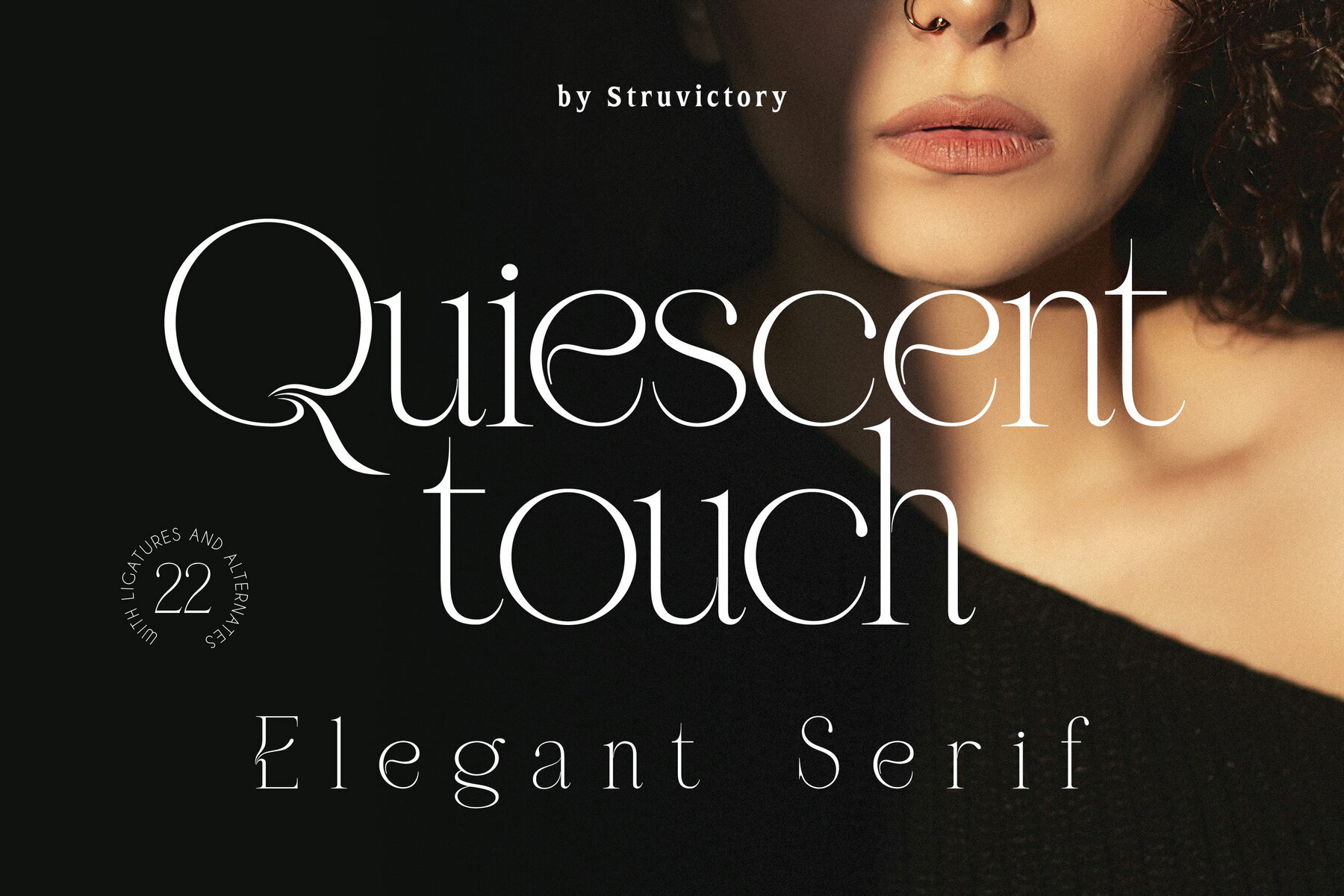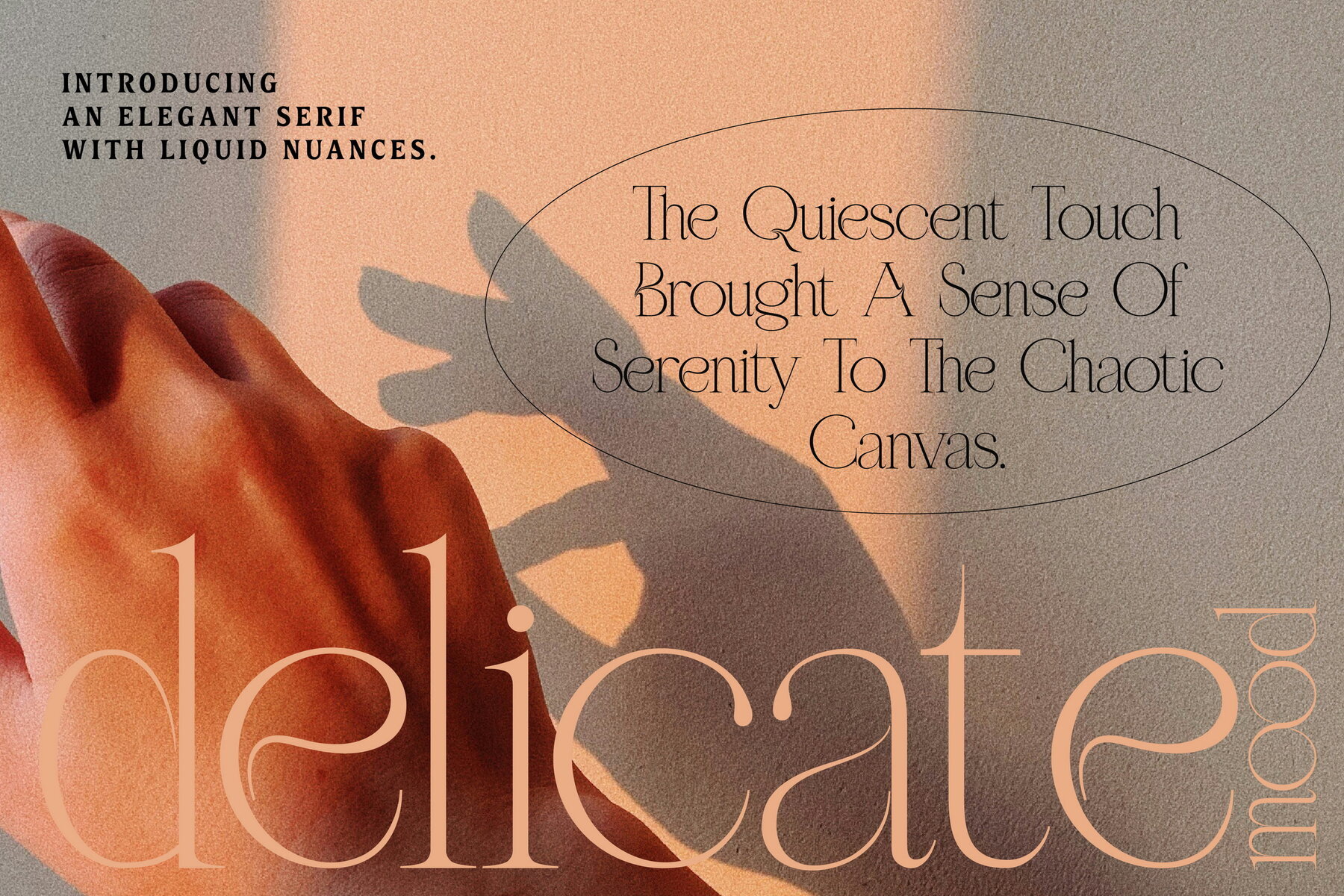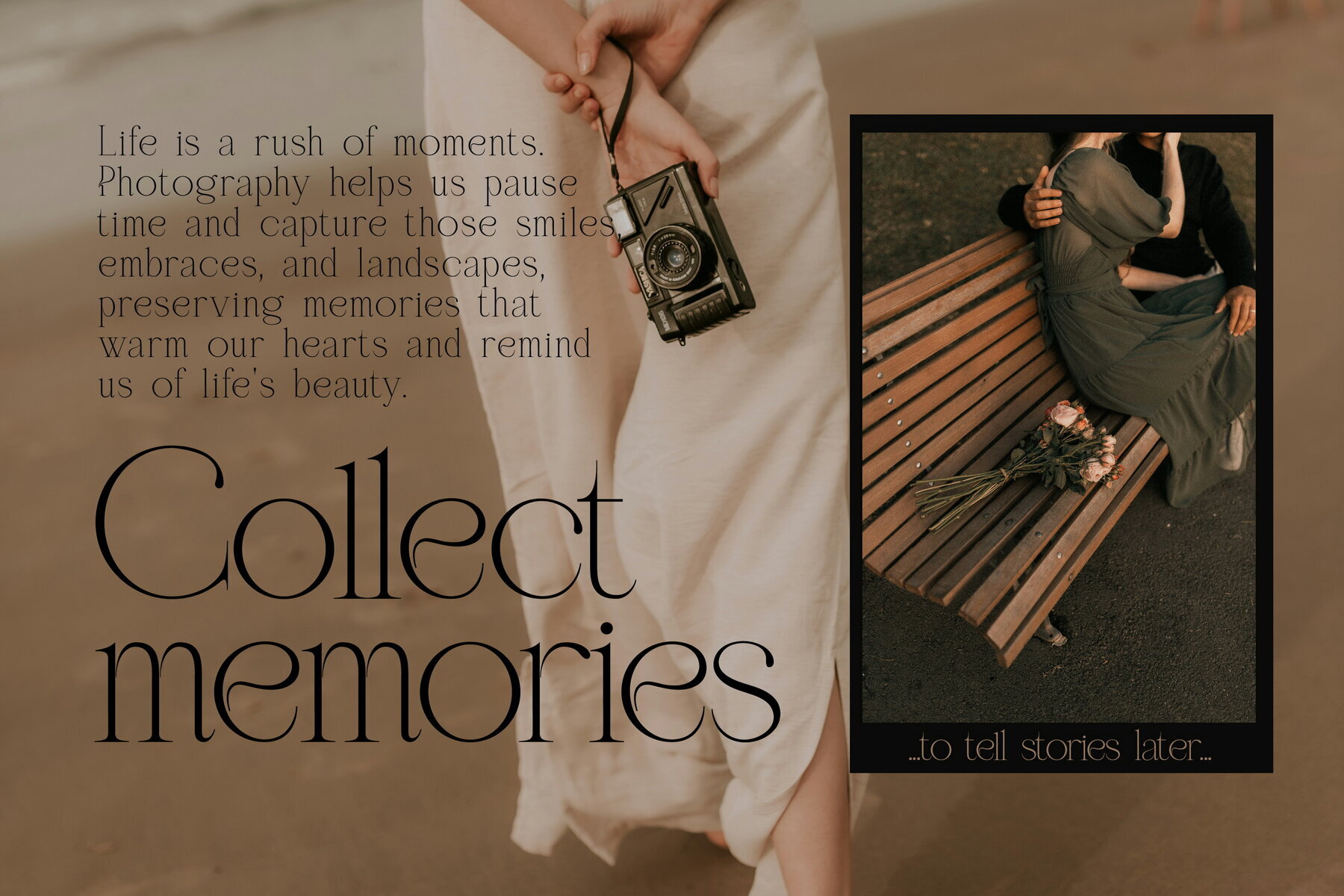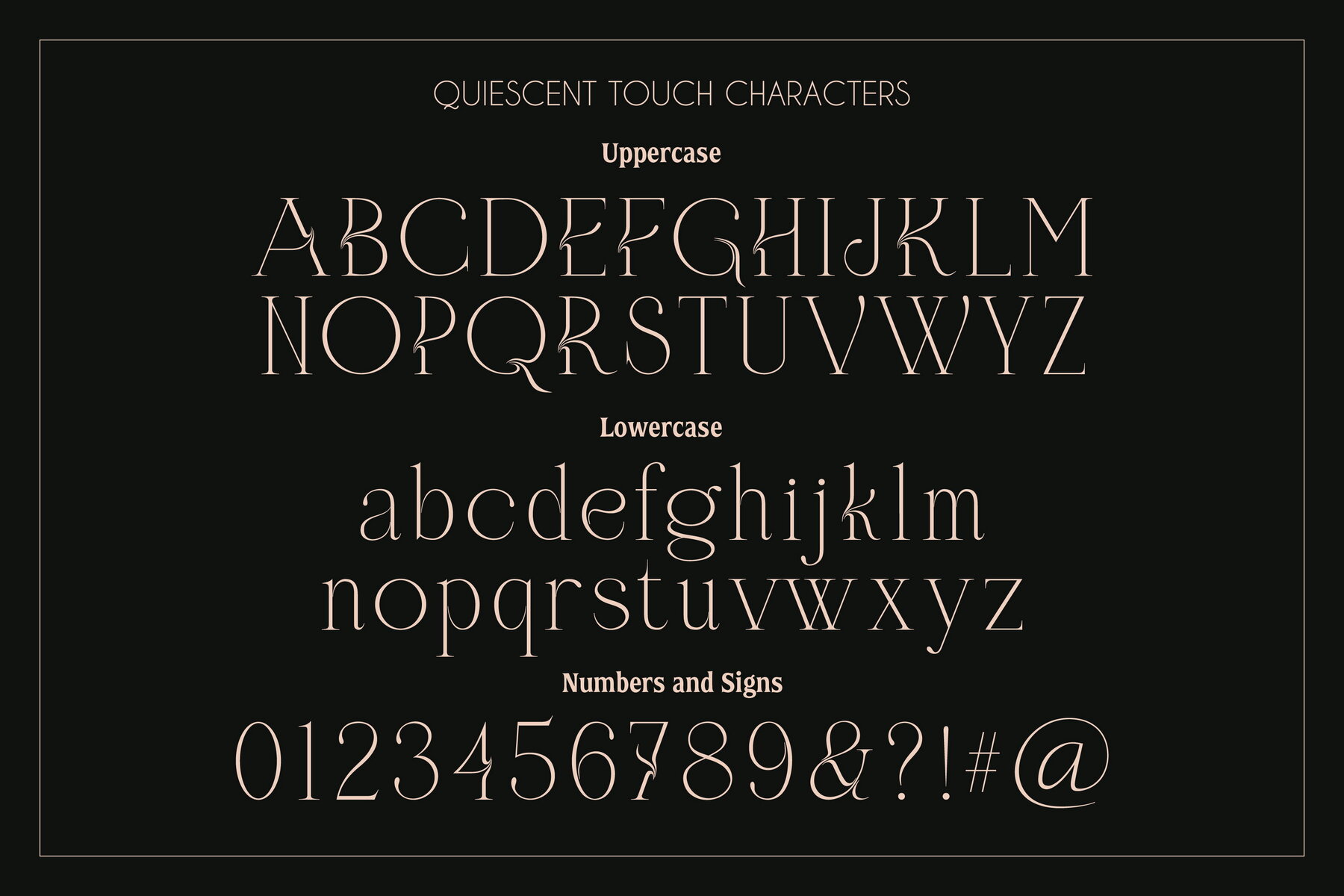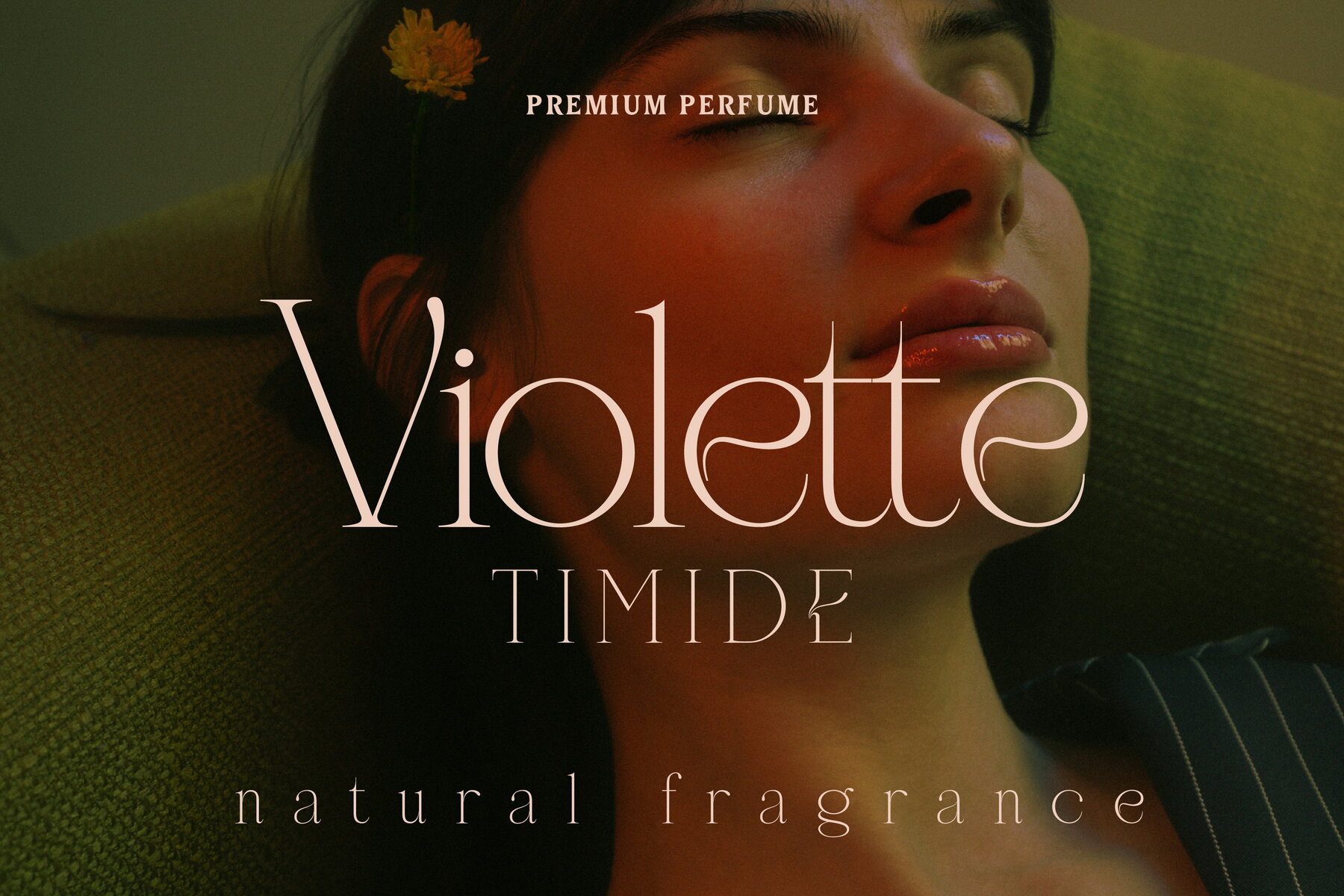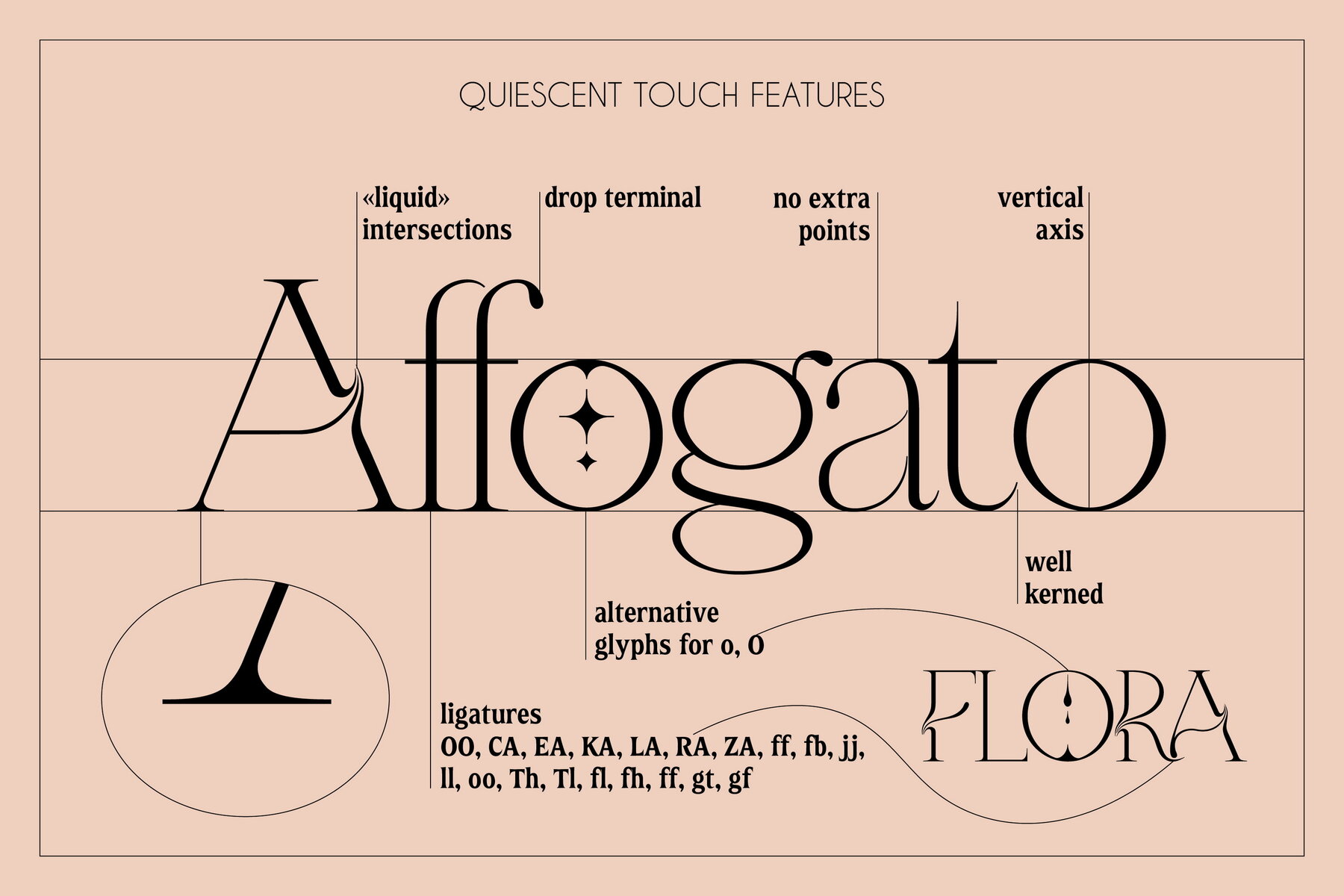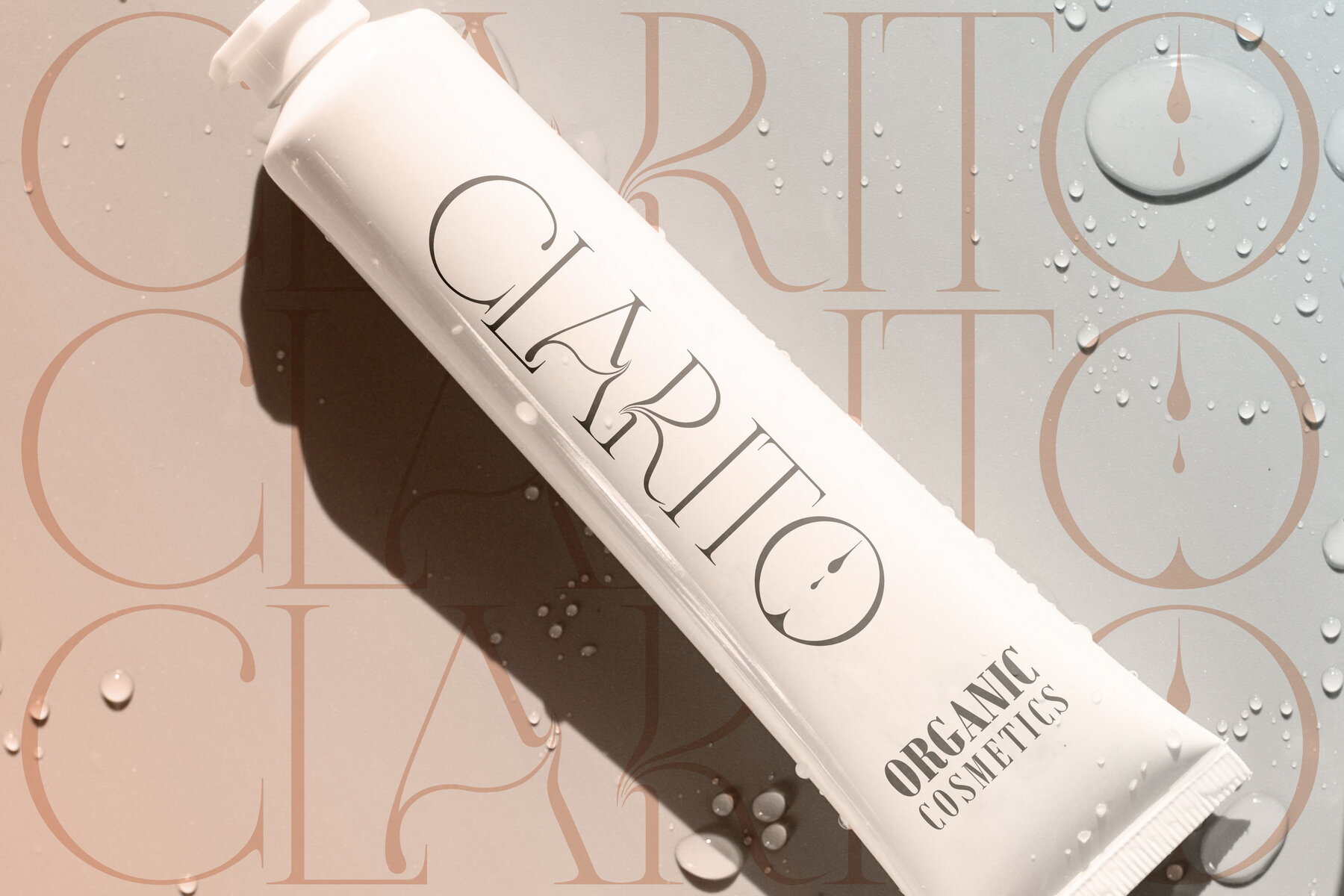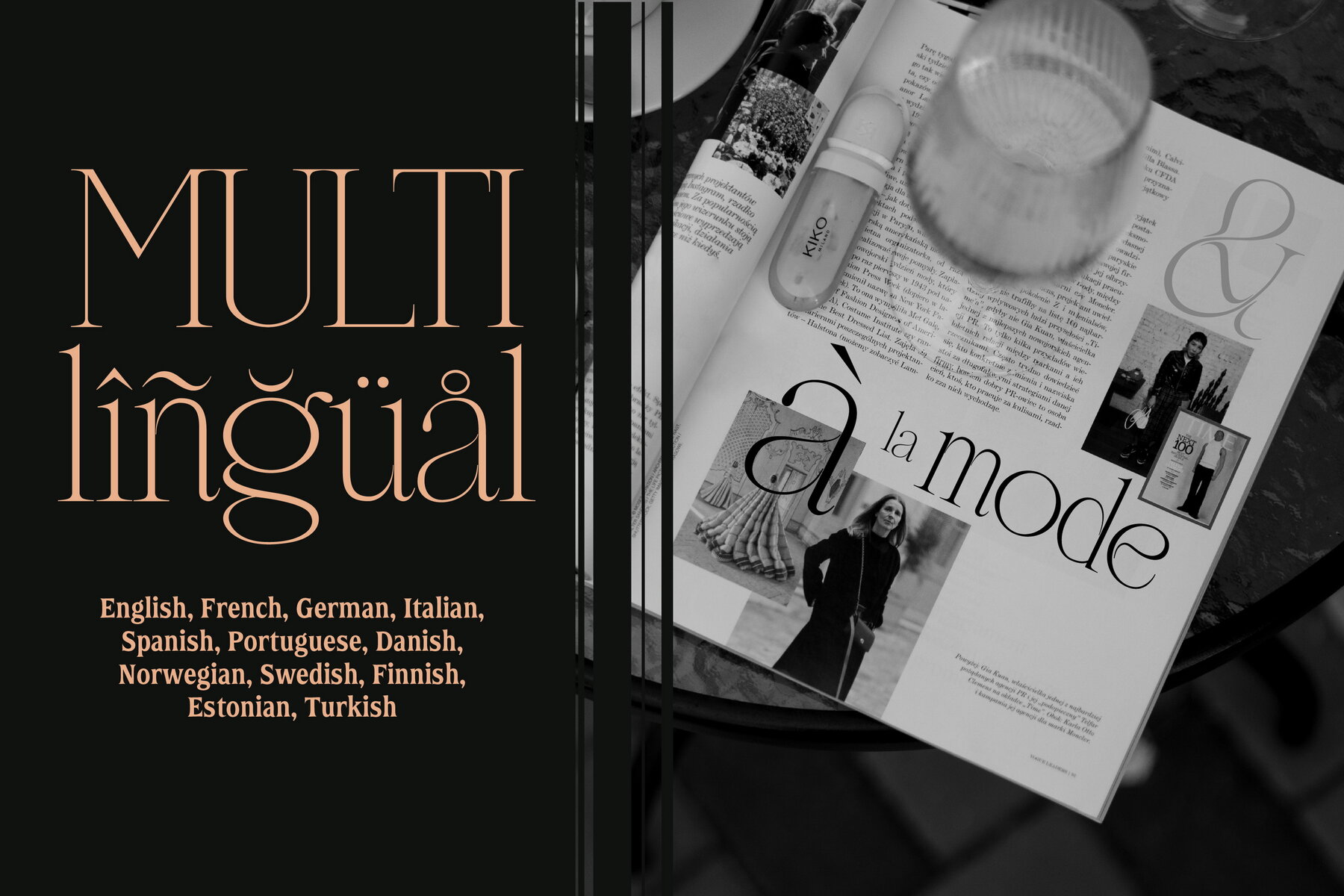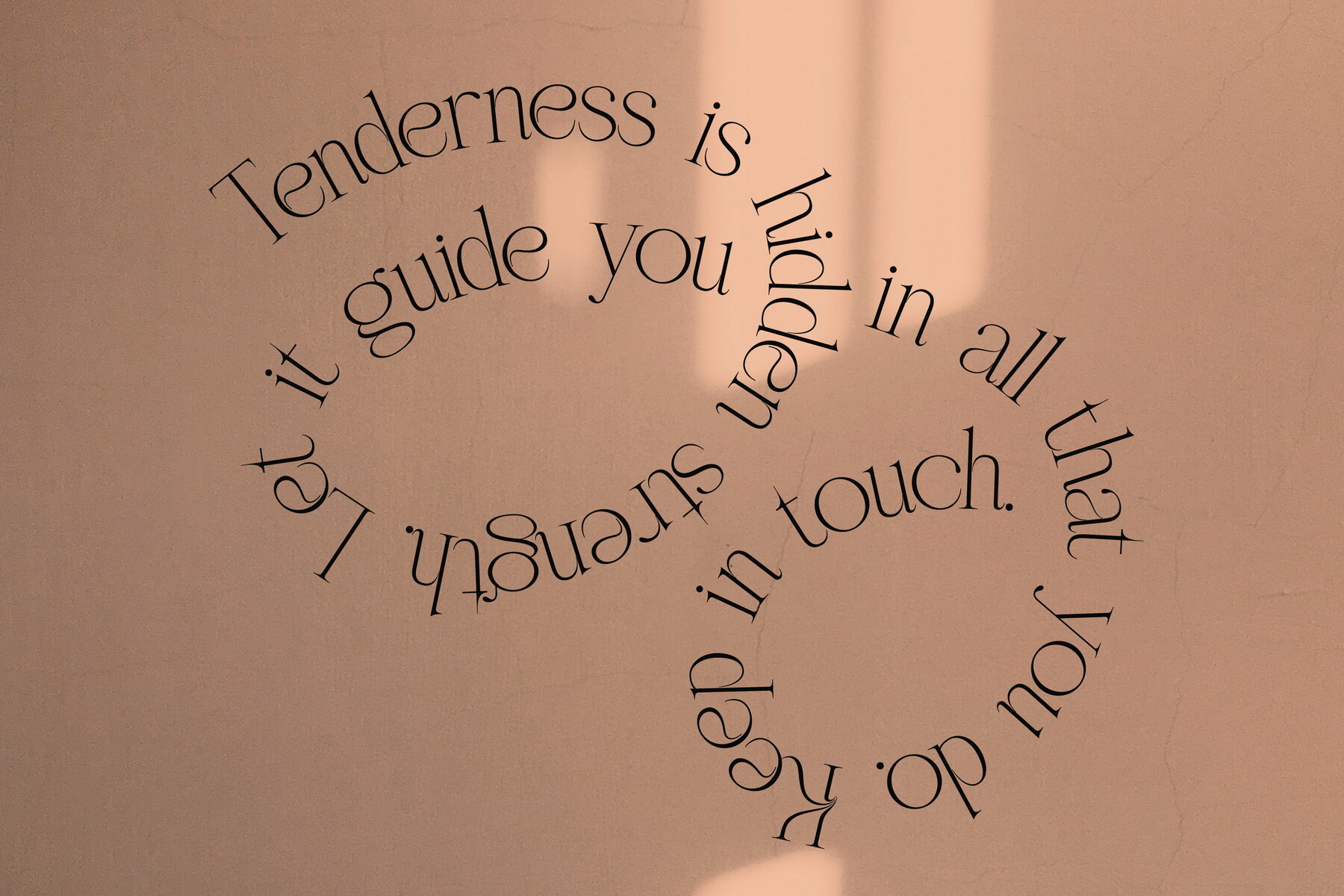
Quiescent Touch
Quiescent Touch is a serif font designed with the elegance and sophistication reminiscent of flowing silk. Its fluid nuances offer a gracefulness ideal for luxury-focused brands. Featuring classic beauty coupled with refined details, this font is an exceptional choice for projects related to jewelry, cosmetics, perfumes, and wedding invitations, imparting a timeless charm and enhancing their exclusive appeal.
The font includes alternative glyphs for the characters 'o' and 'O', as well as a variety of ligatures such as 'OO', 'CA', 'EA', 'KA', 'LA', 'RA', 'ZA', 'ff', 'fb', 'jj', 'll', 'oo', 'Th', 'Tl', 'fl', 'fh', 'gt', and 'gf'. These features add a layer of expressiveness, making Quiescent Touch a versatile and graceful addition to any designer's toolkit.